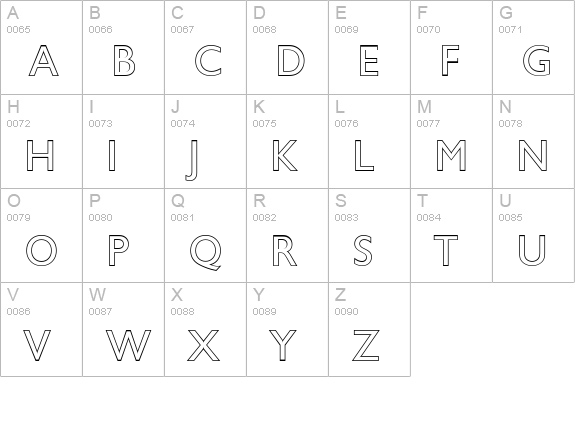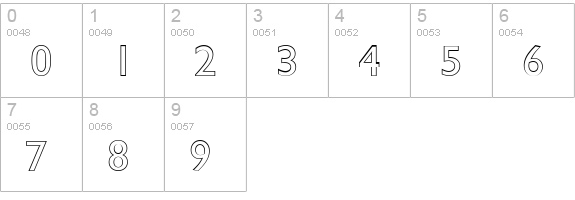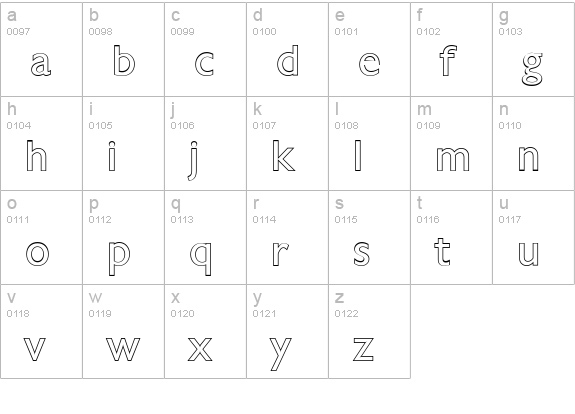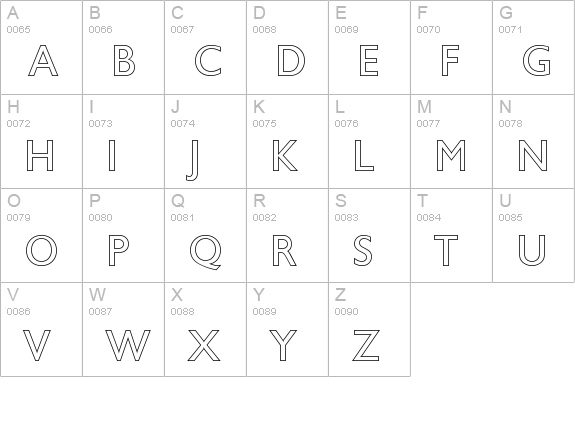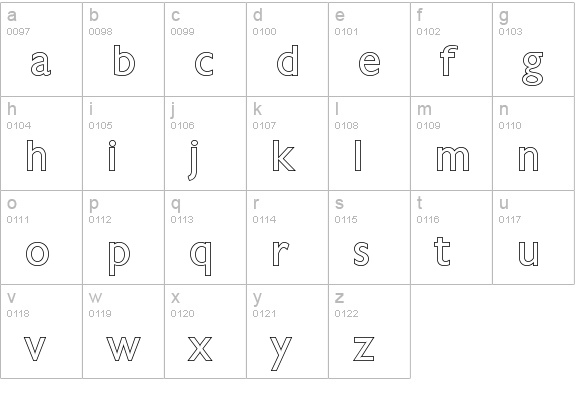
ChantillyOutline-Regular is the standard, neutral variant in the ChantillyOutline typeface family \xE2\x80\x94 well suited to general body text, paragraphs, and standard typographic work.
ChantillyOutline-Regular is a modern and elegant font that adds a touch of sophistication to any design project. With its clean lines and stylish look, this font is perfect for creating eye-catching headlines, logos, and invitations. The outline style gives it a unique and contemporary feel that is sure to make your designs stand out. What's even better is that ChantillyOutline-Regular is available for free download at FontsMarket.com. This means you can easily access this stunning font and use it in your projects without any cost. Whether you're a graphic designer, a blogger, or a business owner looking to enhance your branding, ChantillyOutline-Regular is a versatile font that will elevate your designs to the next level. Download it today and start creating beautiful and professional-looking content effortlessly.